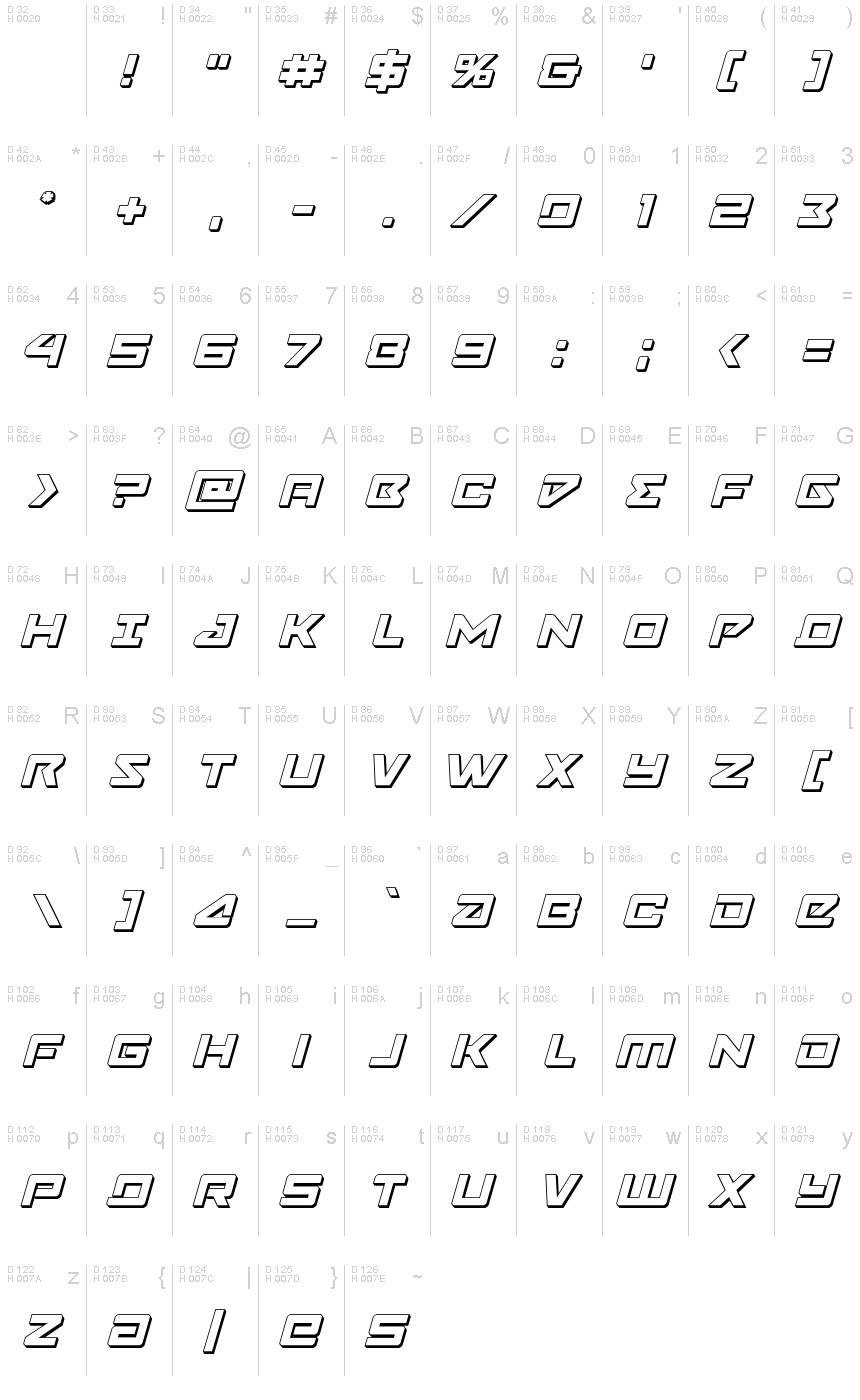
Navy Cadet 3D Italic
Navy Cadet 3D Italic is a striking and futuristic font that exudes a sense of authority and command. With its expanded width and three-dimensional aesthetic, this display font offers a bold and dynamic visual presence. The intricate lines and angular edges create a distinct, technological appeal, making it well-suited for a range of modern and sci-fi-inspired design projects.
Its expanded form and 3D styling lend themselves to applications such as logo design, movie titles, and game interfaces, where a strong, eye-catching typeface is essential. Navy Cadet 3D Italic's unique character and versatility make it a powerful choice for designers seeking to infuse their work with a sleek, high-tech aesthetic.